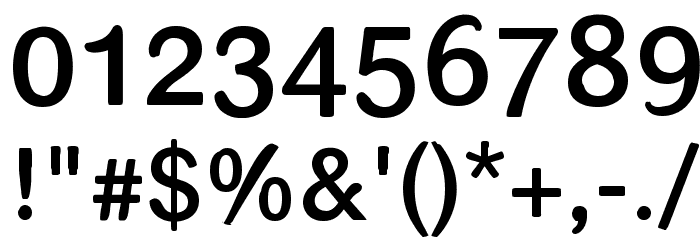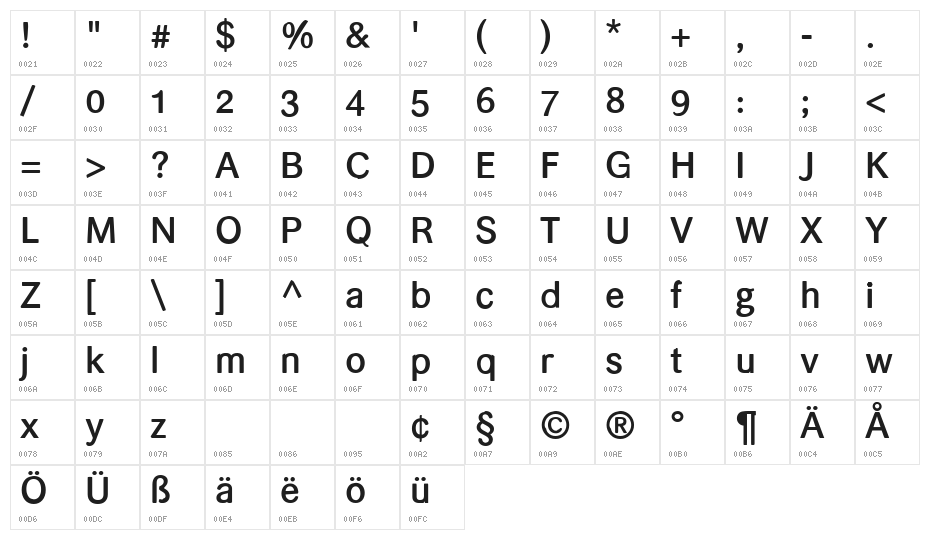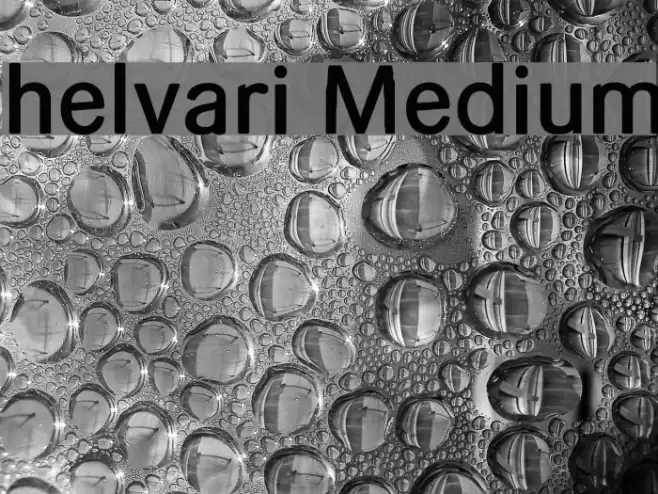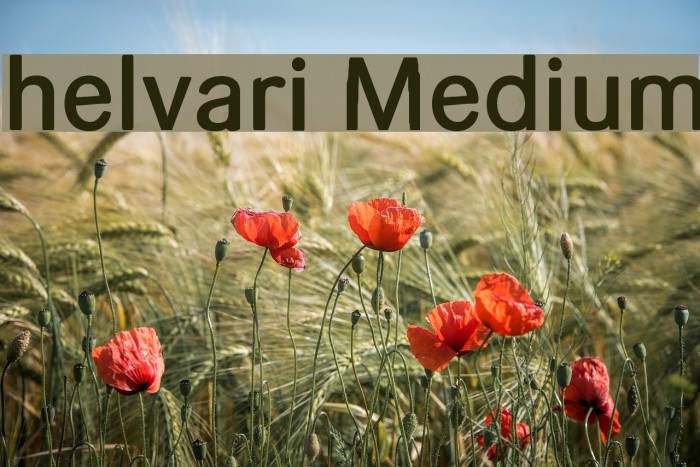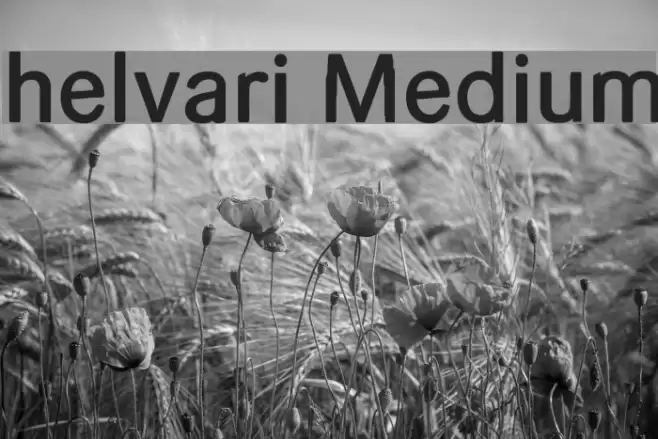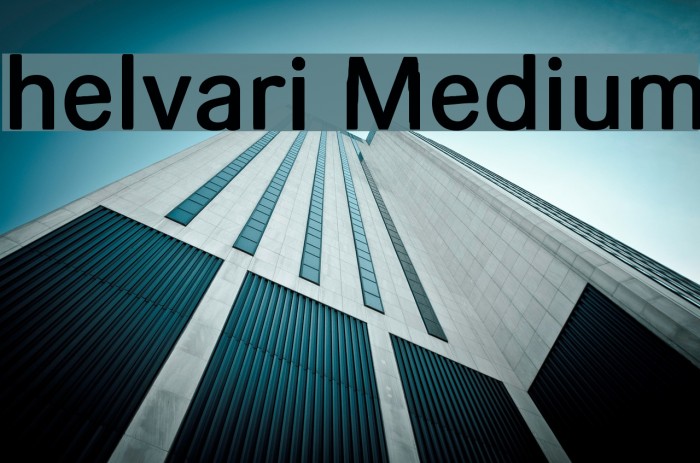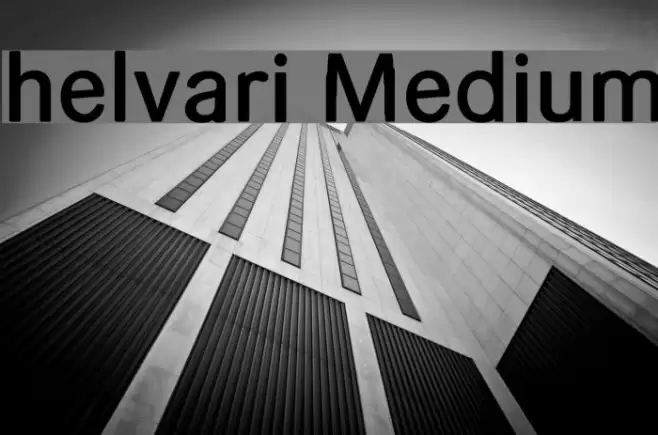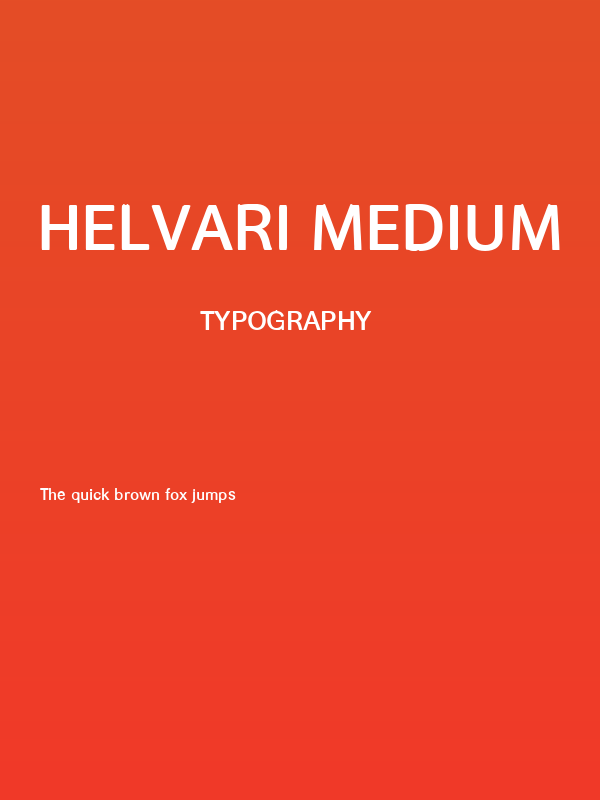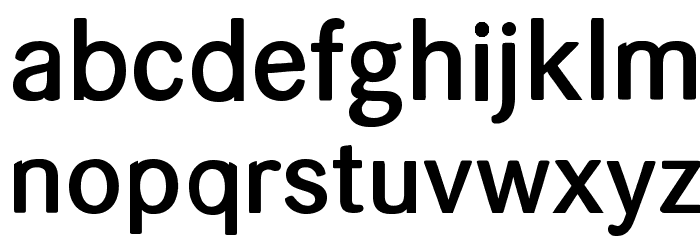
helvari Medium Font
helvari Medium Description
This typeface features a clean and modern sans-serif design, characterized by its simplicity and clarity. The letters are well-proportioned with a uniform stroke width, providing a balanced and harmonious appearance. The uppercase and lowercase letters maintain a consistent style, ensuring readability and versatility across various applications. The numerals are clear and distinct, making them suitable for both text and numerical data. The special characters are well-integrated, enhancing the font's utility in diverse contexts.
loosydesign - Fabian Pfeifhofer - www.loosydesign.com
Use CaseHeadlines, Body text, Logos
Proposed ProjectsIdeal for corporate branding, web design, editorial layouts, and signage due to its clarity and modern appeal.